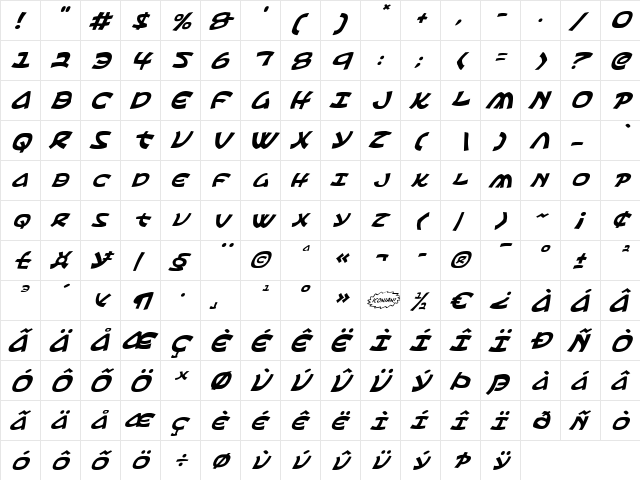
Ephesian Italic Italic
Design Context for Ephesian Italic Typeface
Ephesian Italic takes a measured approach to typography — its balanced proportions and neutral character make it a reliable workhorse for both digital and print work. The slanted form adds forward momentum and visual energy.
Pro Tip: Use Ephesian Italic for emphasis, pull quotes, and subheadings where its slanted energy can add rhythm to the layout.